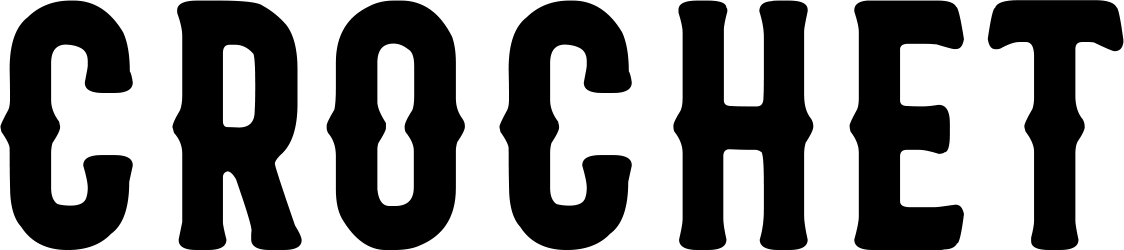
Crochet Font
Today we have another Western font for you. This font is called Crochet and is perfect for giving a native Western feeling to the reader and at the same time, making a classy text. This one is an all-caps font which is perfect for movie and book headlines. Please note that this font only contains the major characters.